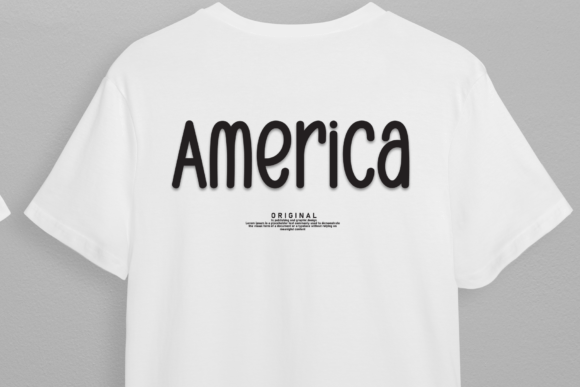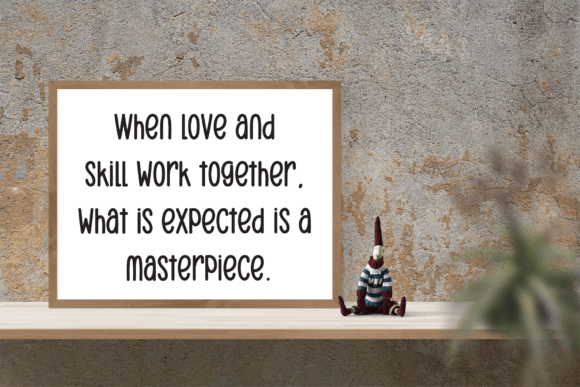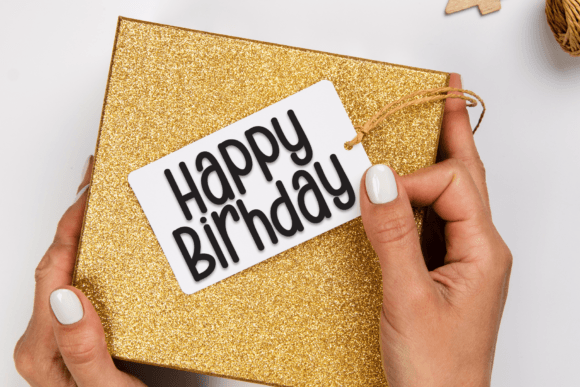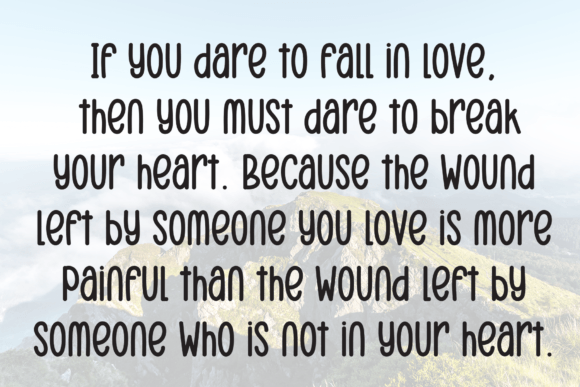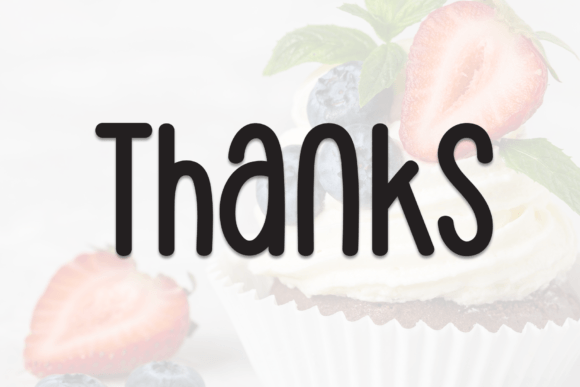
Hello Cupcake Font: The Sweetest Addition to Your Design Collection
Are you a designer, crafter, or DIY enthusiast looking for a font that can add a touch of sweetness and personality to your projects? Look no further than the Hello Cupcake font! This delightful handwritten font is perfect for a wide range of designs, from baking and crafting to party planning and beyond.
What is Hello Cupcake Font?
Hello Cupcake is a sweet and friendly handwritten font that is sure to capture the hearts of designers and crafters alike. Its natural and unique style makes it incredibly fitting to a large pool of designs, and the only limit is your imagination! Whether you’re creating custom party invitations, baking labels, or social media graphics, Hello Cupcake font is the perfect choice.
Characteristics of Hello Cupcake Font
So, what makes Hello Cupcake font so special? Here are just a few of its key characteristics:
- Handwritten style: Hello Cupcake font has a beautiful, handwritten style that is both sweet and friendly.
- Natural and unique: The font’s natural and unique style makes it perfect for a wide range of designs, from rustic and vintage to modern and playful.
- Versatile: Hello Cupcake font can be used for a variety of projects, including baking, crafting, party planning, and more.
- Easy to read: Despite its playful style, Hello Cupcake font is easy to read, making it perfect for use in titles, headings, and body text.
Uses for Hello Cupcake Font
So, what can you use Hello Cupcake font for? The possibilities are endless! Here are just a few ideas to get you started:
- Baking and desserts: Use Hello Cupcake font to create custom labels, party invitations, and social media graphics for your baked goods.
- Crafting and DIY: Add a personal touch to your crafting and DIY projects with Hello Cupcake font, perfect for use on signs, banners, and more.
- Party planning: Create custom party invitations, decorations, and favors with Hello Cupcake font, perfect for birthday parties, baby showers, and more.
- Social media graphics: Use Hello Cupcake font to create eye-catching social media graphics, perfect for promoting your business or showcasing your creative projects.
Tips for Using Hello Cupcake Font
Here are a few tips for getting the most out of Hello Cupcake font:
- Experiment with different colors: Hello Cupcake font looks great in a variety of colors, so don’t be afraid to experiment and find the perfect hue for your project.
- Pair with other fonts: Hello Cupcake font pairs well with a variety of other fonts, so try combining it with other fonts to create a unique and eye-catching design.
- Use it sparingly: While Hello Cupcake font is perfect for titles and headings, it can be overwhelming if used too much. Use it sparingly to create a balanced design.